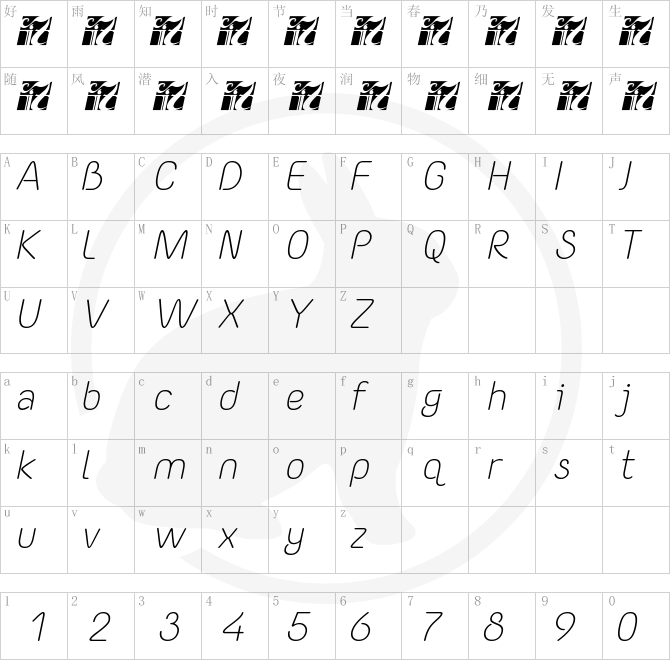
- Font Name:Yaahowu Light Italic
Yaahowu-Light-Italic-Italic.ttf is a very beautiful artistic font, Yaahowu-Light-Italic-Italic.ttf is widely used in the design and printing of various books and pictures,Yaahowu-Light-Italic-Italic.ttf has a strong visual impact,Yaahowu-Light-Italic-Italic.ttf is a commonly used font in newspapers, magazines and books, and is used in posters, e-commerce Poster design, store design, logo design, font design and other fields.Yaahowu-Light-Italic-Italic.